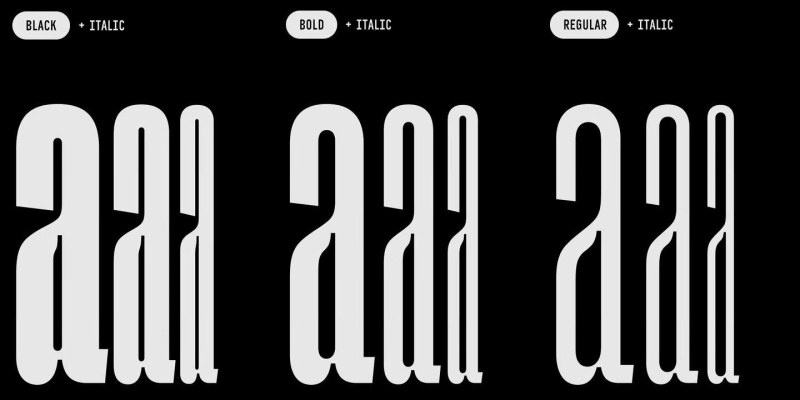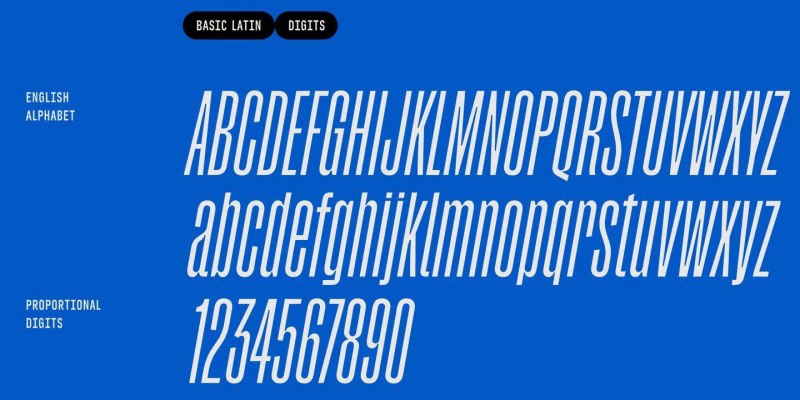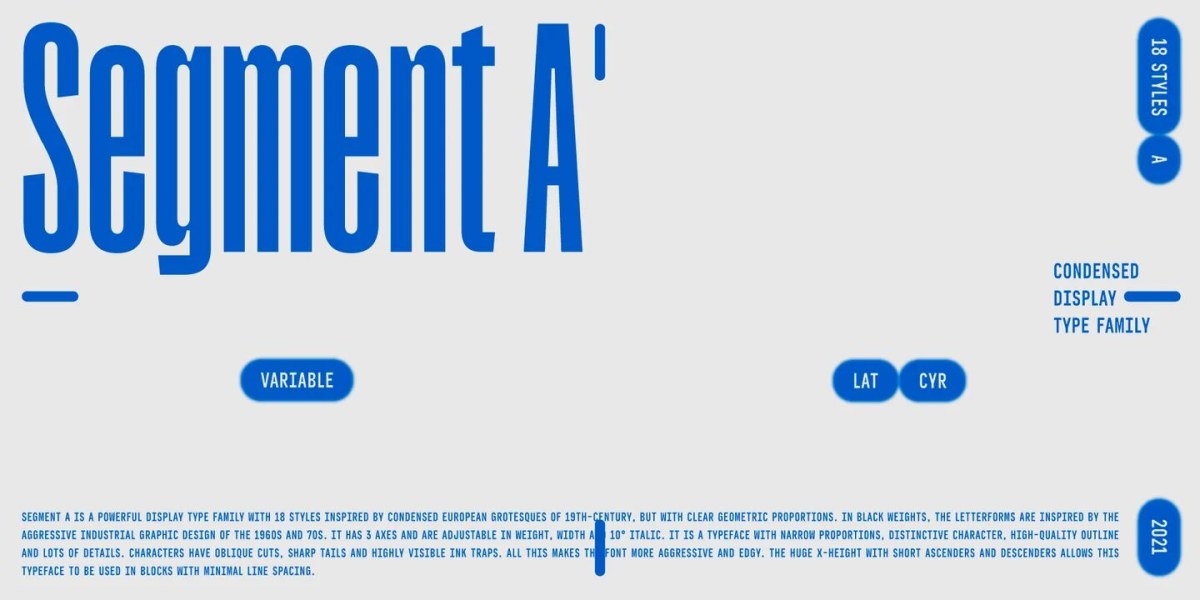
Segment A Font Family
Segment A is a powerful display type family with 18 styles inspired by condensed European grotesques of 19th-century, but with clear geometric proportions. In Black weights, the letterforms are inspired by the aggressive industrial graphic design of the 1960s and 70s. Both have 3 axes and are adjustable in weight, width and 10˚ italic. It is a typeface with narrow proportions, distinctive character, high-quality outline and lots of details. Characters have oblique cuts, sharp tails and highly visible ink traps. All this makes the font more aggressive and edgy. The huge x-height with short ascenders and descenders allows this typeface to be used in blocks with minimal line spacing.
Segment A Font Family is a Sans Serif Fonts font that brings a professional and versatile look to your projects. Segment A is a powerful display type family with 18 styles inspired by condensed European grotesques of 19th-century, but with clear geometric proportions.